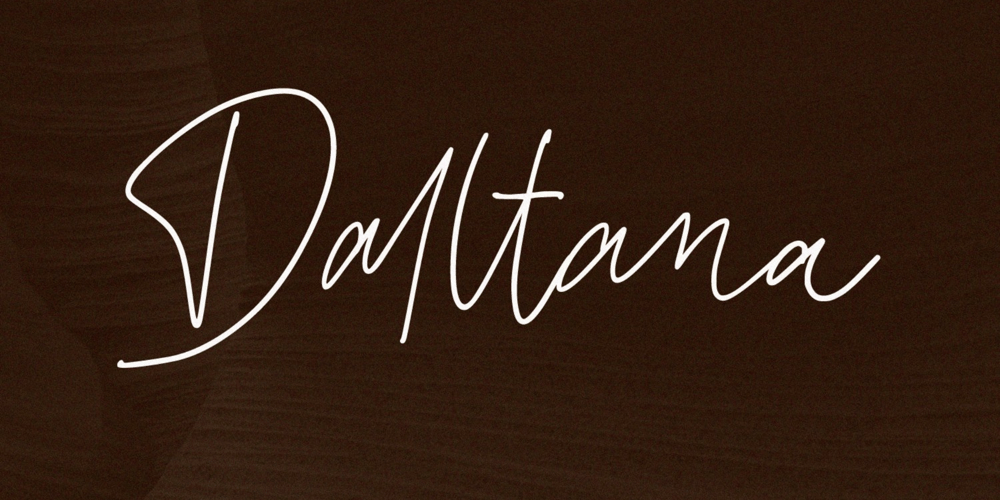
Daltana Font Family was designed by Irpan Maulana and published by Sabrcreative. Daltana contains 1 styles and family package options. Experience the artistry of handwritten elegance with Daltana Handwriting Font. This exquisite typeface brings a touch of personal authenticity to your designs, combining the fluidity of signature handwriting with the precision of modern typography. Whether you’re crafting wedding invitations, logos, or creative branding materials, Daltana Handwriting Font adds a unique and expressive flair that resonates with sophistication.